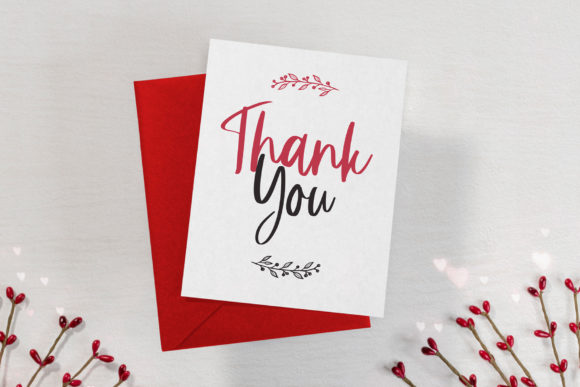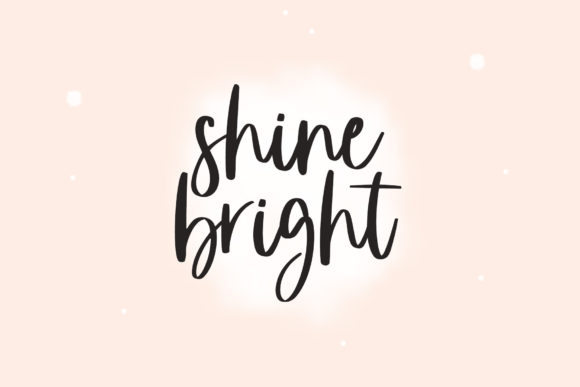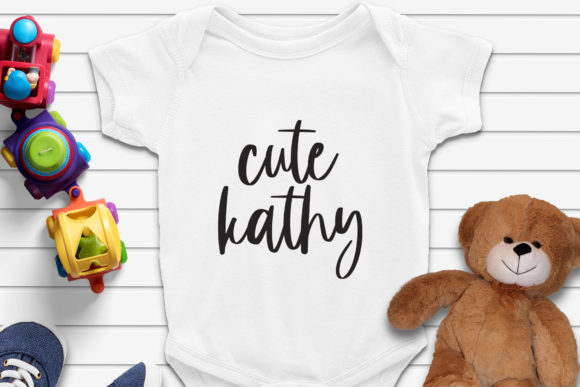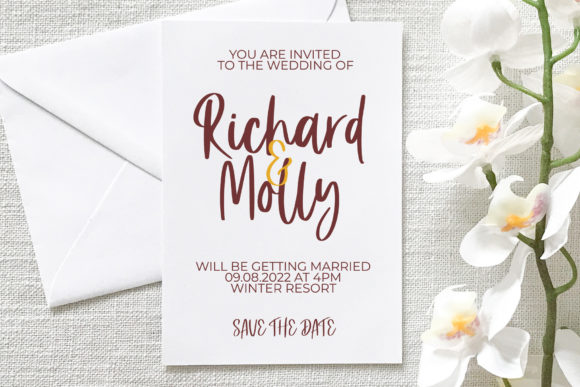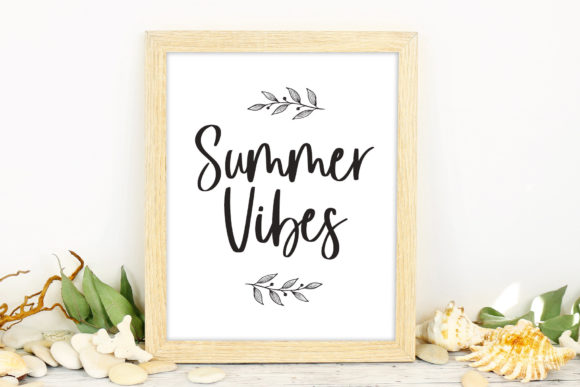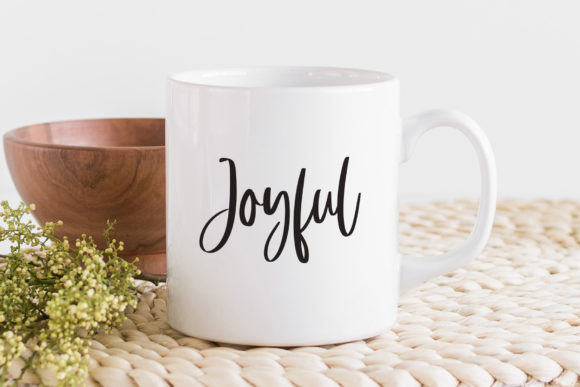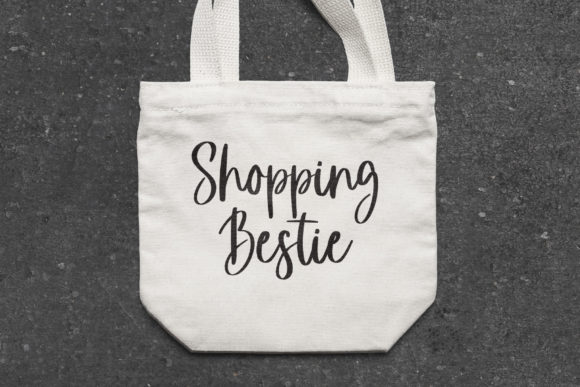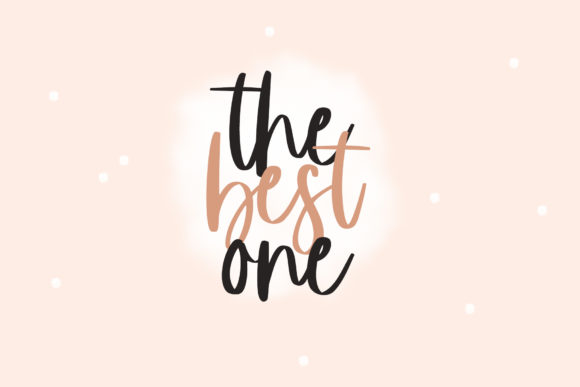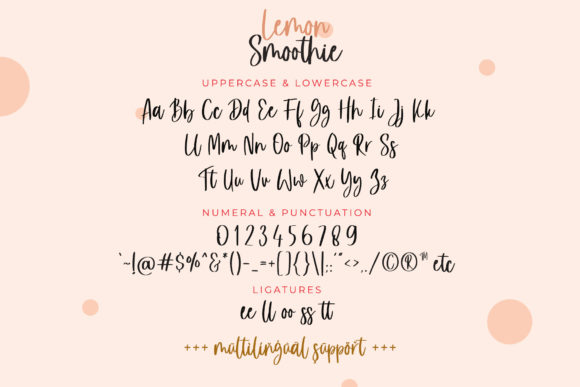
Lemon Smoothie Font
About Lemon Smoothie Font
**Lemon Smoothie** is introduced as a cute and bouncy handwritten font, characterized by its adorable and quirky charm. This versatile font is well-suited for a wide range of design projects, especially those that benefit from a handwritten touch. With its cuteness and quirkiness, Lemon Smoothie becomes the perfect choice for various applications, including wedding invitations, t-shirt design, crafting, stickers, sublimation, and more.
The cuteness and bounciness of Lemon Smoothie are evident in its handwritten style. Each character exudes a playful charm, making it a delightful addition to projects that aim to convey a lighthearted and friendly atmosphere. This font becomes a visual storyteller, infusing designs with a sense of joy and creativity.
In wedding invitations, Lemon Smoothie adds a touch of whimsy and personality. The handwritten font brings a sense of informality and warmth, making invitations feel personal and unique. Its versatility allows it to adapt to various wedding themes, from casual to playful.
For t-shirt design, Lemon Smoothie becomes a fun and eye-catching choice. The cute and bouncy letters create dynamic and engaging visuals, making the font suitable for designs aimed at a younger audience or those seeking a more casual and relaxed style.
In crafting and sticker projects, Lemon Smoothie stands out with its playful and handwritten appeal. Whether used for labels, tags, or stickers, the font adds a personalized and handmade touch that resonates with creativity and DIY aesthetics.
Sublimation projects benefit from the charm of Lemon Smoothie, especially when aiming for designs that evoke a sense of joy and positivity. The cute and bouncy letters contribute to a design that feels lively and expressive, making it a great choice for various sublimation applications.
The PUA encoding of Lemon Smoothie enhances accessibility, allowing easy access to its amazing glyphs and ligatures. This feature simplifies the process of incorporating special characters and variations, providing a user-friendly experience for designers.
In essence, Lemon Smoothie goes beyond being just a font; it becomes a design companion that injects cuteness and quirkiness into your creative projects. Whether applied to wedding invitations, t-shirt design, crafting, stickers, sublimation, or any project that calls for a playful handwritten touch, this font stands ready to elevate your designs. Embrace the charm of Lemon Smoothie and experience the joy it brings to your visual storytelling.